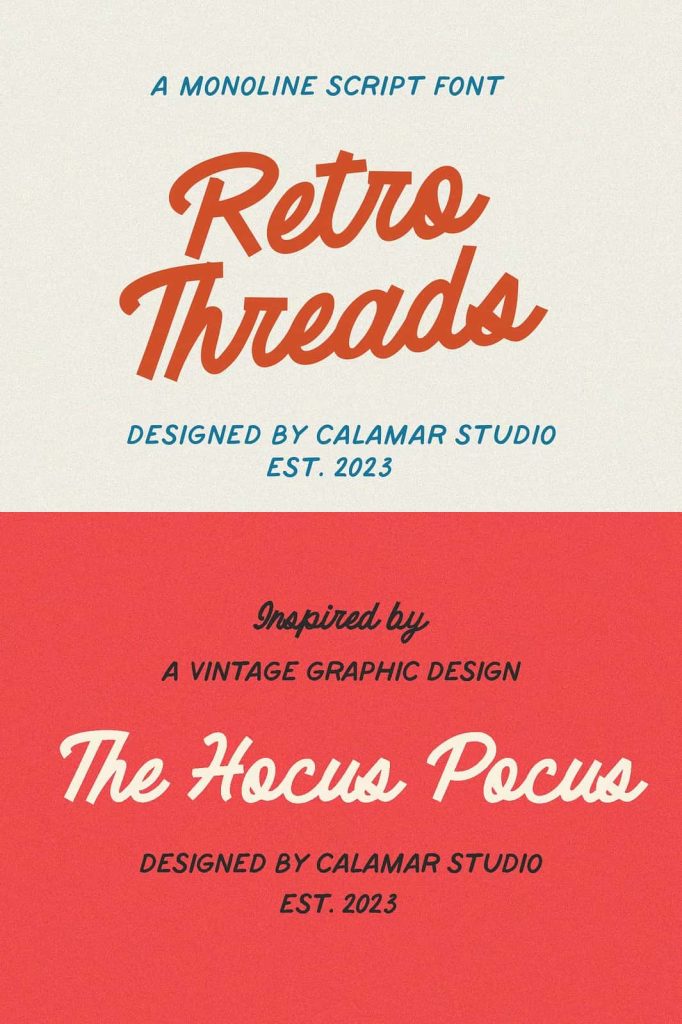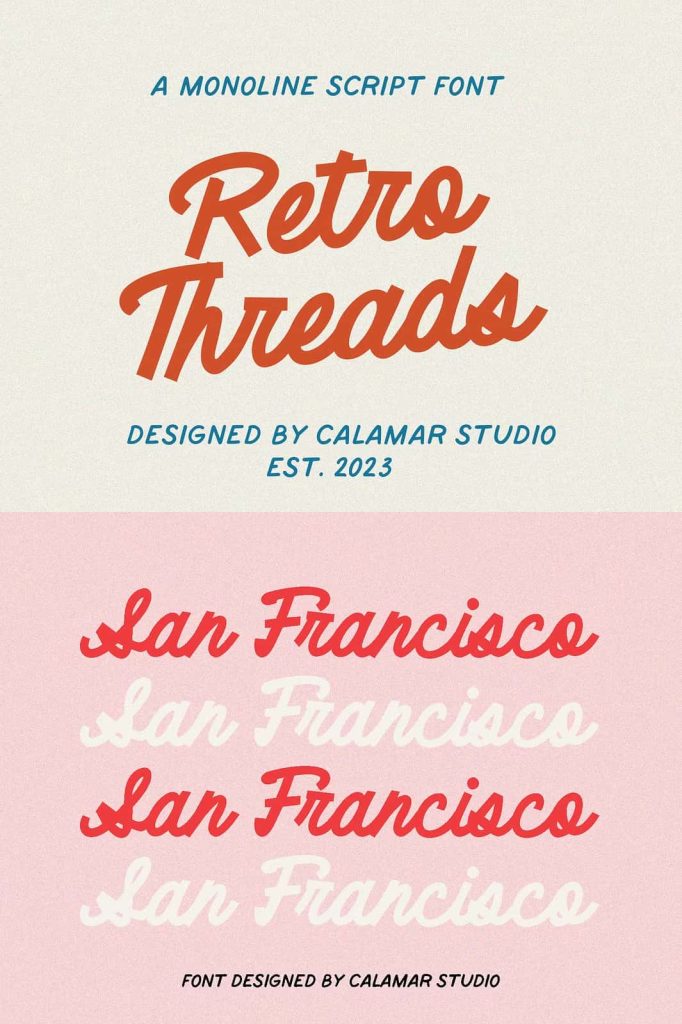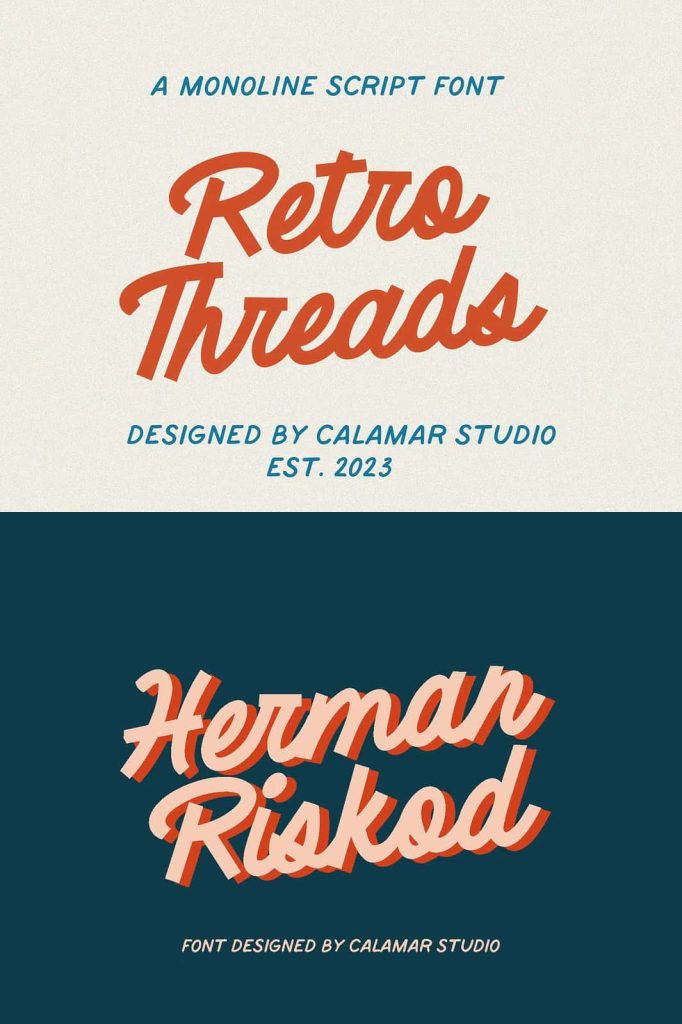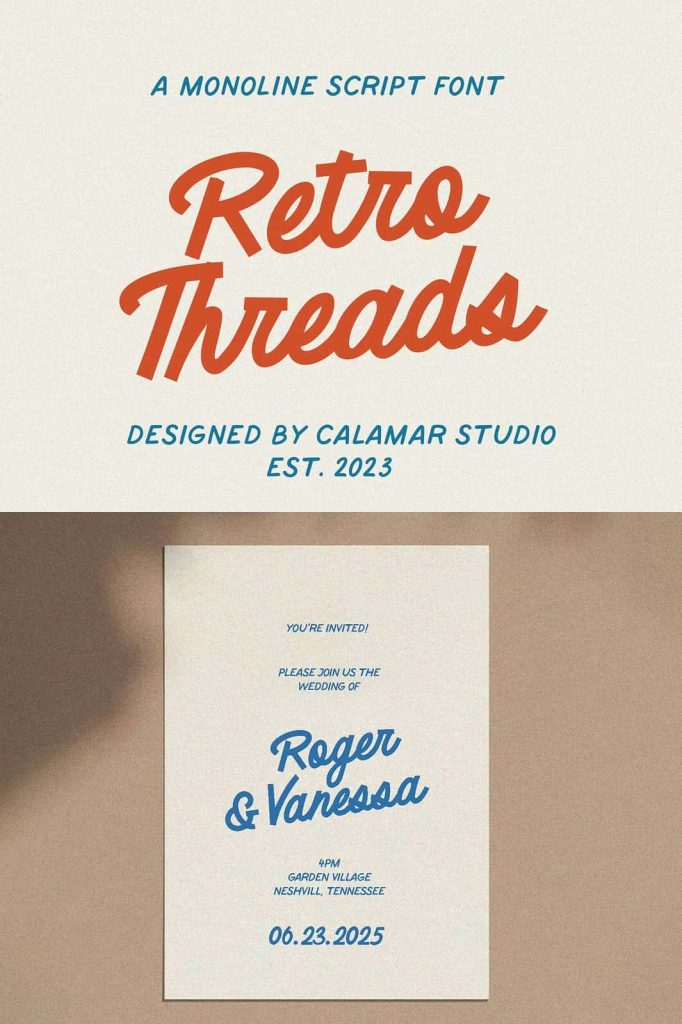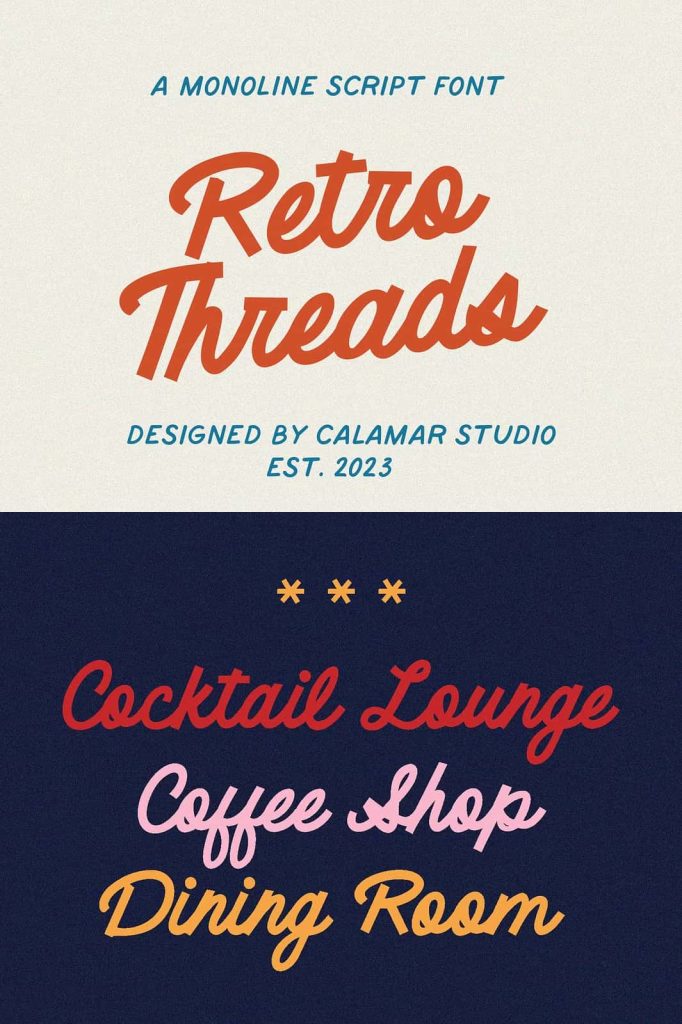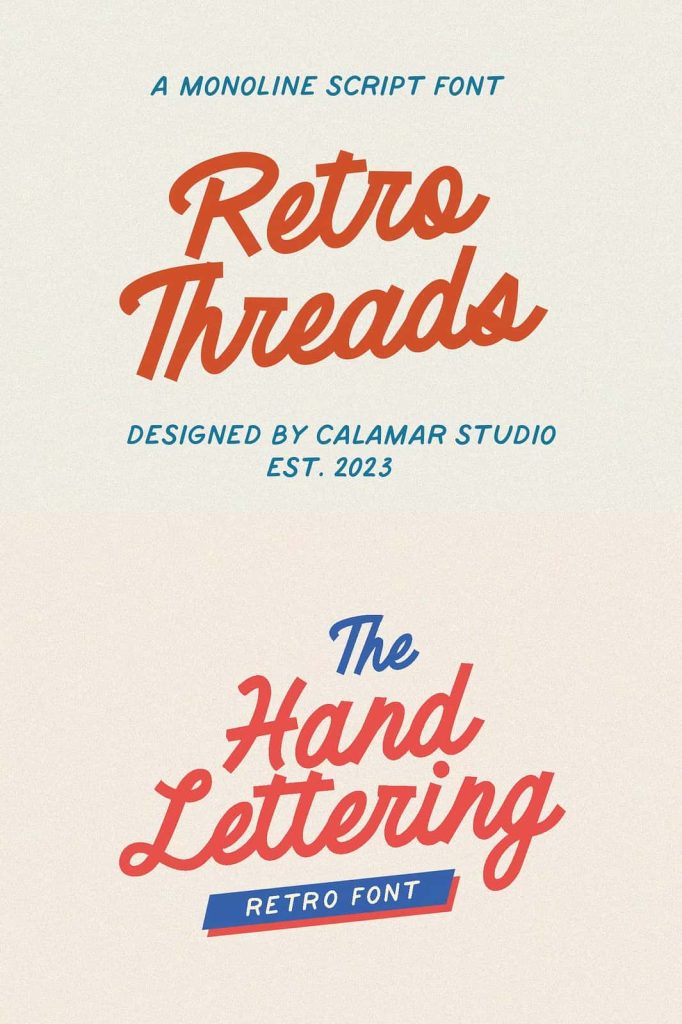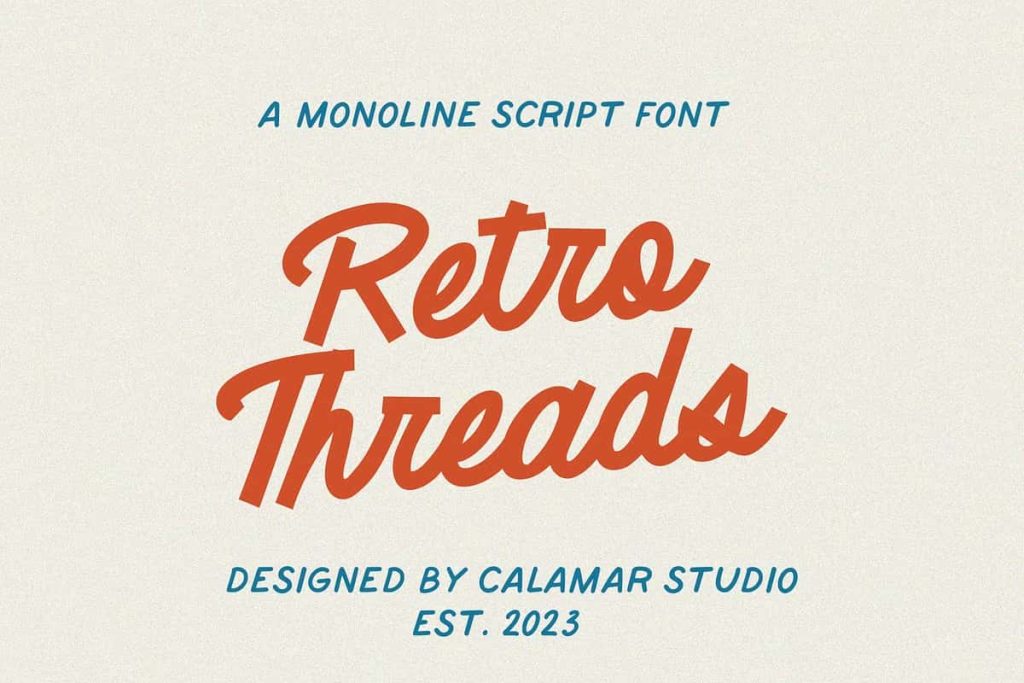
Retro Threads | Retro Script Font
Retro Threads: A Retro Vintage Font That Brings Timeless Character to Your Designs
Introducing Retro Threads, a powerful retro vintage font created to help designers bring bold personality and nostalgic energy into modern visual projects. Inspired by classic typography from past decades, Retro Threads blends old-school charm with contemporary usability, making it an excellent choice for creatives who want their designs to stand out while still feeling familiar and authentic.
This font is not just about appearance—it is about storytelling. Every letterform in Retro Threads is crafted to evoke memories of classic signage, vintage packaging, and iconic print designs. By using this font, you instantly communicate warmth, authenticity, and confidence, which are essential qualities for brands that want to create an emotional connection with their audience.
Designed for Strong Visual Impact
Retro Threads delivers strong visual impact through its bold strokes, balanced proportions, and distinctive retro details. The font captures the essence of vintage typography while maintaining clarity and readability across different media. Whether you are designing for print or digital platforms, Retro Threads performs consistently and professionally.
The letter shapes are expressive without being overwhelming. This balance allows designers to use Retro Threads as a primary display font without sacrificing legibility. Headlines, titles, and featured text instantly gain attention and authority when set in this retro vintage font.
Perfect for Logos and Brand Identity
If you are working on a brand identity that needs a timeless yet confident look, Retro Threads is an excellent solution. Its vintage-inspired design helps brands express heritage, craftsmanship, and trust. This makes it especially effective for businesses in fashion, food and beverage, lifestyle, music, and creative industries.
Logos designed with Retro Threads feel intentional and memorable. The font gives brands a strong voice that feels rooted in tradition while still being adaptable to modern trends. This combination ensures your logo remains relevant and recognizable for years to come.
Ideal for Packaging and Label Design
Packaging design relies heavily on typography to communicate value and personality at first glance. Retro Threads excels in this area by adding character and visual depth to product packaging and labels. Its retro aesthetic works particularly well for artisanal products, handmade goods, specialty foods, and limited-edition items.
When used on packaging, this retro vintage font helps products stand out on shelves and digital marketplaces. It instantly suggests quality, authenticity, and uniqueness, encouraging customers to engage with the brand and explore the product further.
Create Eye-Catching Posters and Promotional Materials
Posters and promotional graphics demand attention, and Retro Threads delivers exactly that. The font’s bold and expressive nature makes it ideal for posters, flyers, banners, and social media promotions. It helps communicate messages clearly while maintaining a strong visual identity.
Designers can confidently use Retro Threads for event posters, music promotions, festivals, and creative campaigns. The font enhances the overall composition and ensures that key messages remain impactful and easy to read.
Awesome Lettering for T-Shirts and Apparel
Retro Threads is also an excellent choice for t-shirt designs and apparel branding. Its vintage style translates beautifully into textile printing, embroidery, and merchandise graphics. The font adds personality and attitude, making apparel designs feel intentional and expressive.
Whether you are creating statement typography for fashion brands or custom merchandise for events, Retro Threads helps your designs feel bold, stylish, and timeless. The font adapts well to different sizes and printing techniques, ensuring consistent quality across products.
Versatile, Reliable, and Easy to Use
Beyond its visual appeal, Retro Threads is designed with usability in mind. It integrates smoothly into common design software and works well across various creative workflows. Designers can confidently use this font in both large-scale projects and detailed compositions.
Retro Threads empowers designers to create work that feels confident, expressive, and professional. Its retro vintage style adds depth and character, making every design more engaging and memorable.
Bring Vintage Style Into Modern Design
Retro Threads proves that vintage-inspired typography can remain powerful and relevant in today’s design landscape. By choosing this retro vintage font, you give your projects a distinctive voice that resonates with audiences and elevates your creative work.